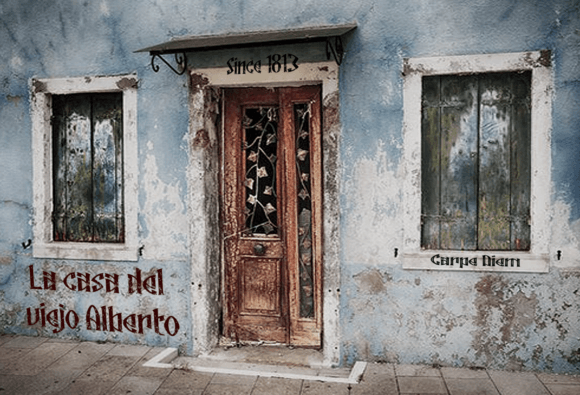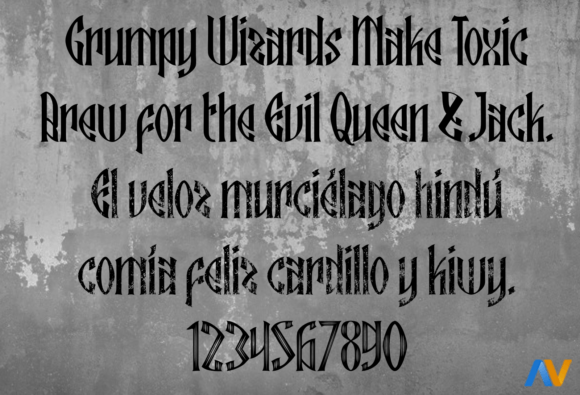
Discover the Timeless Elegance of Ebbarus Font: A Blackletter Multistyle Marvel
Are you ready to transport your designs to a bygone era of sophistication and refinement? Look no further than the Ebbarus 2020 font, a masterpiece crafted by Albertako that embodies the essence of vintage elegance. This blackletter multistyle font is a treasure trove of creative possibilities, offering three distinct styles to elevate your visual projects.
Unleash the Charm of Yesteryear with Ebbarus 2020
Ebbarus 2020 is more than just a font – it’s an experience. Its antiquated vibe is reminiscent of worn-out artifacts from a bygone era, yet it preserves the personality that made them so endearing. This font is perfect for designers and crafters seeking to infuse their work with a sense of history and character. Whether you’re working on a branding project, packaging design, or editorial content, Ebbarus 2020 is sure to leave a lasting impression.
Explore the Three Styles of Ebbarus 2020
One of the standout features of Ebbarus 2020 is its versatility, thanks to its three distinct styles:
- Blackletter Style: The core of Ebbarus 2020, this style boasts a dramatic, cursive flair that’s perfect for creating eye-catching headlines and titles.
- Scratched Variant: Add a touch of rustic charm to your designs with this unique, distressed variant. The scratched texture gives your text a worn, vintage look that’s sure to captivate your audience.
- Classical Regular Font: For a more subtle approach, the classical regular font offers a soothing contrast to the other two styles. Its classic design makes it ideal for body text, captions, or any situation where readability is paramount.
Combining Styles for Stunning Effects
The true magic of Ebbarus 2020 lies in its ability to combine all three styles seamlessly. By mixing and matching the blackletter, scratched, and classical regular fonts, you can create visually stunning effects that add an authentic edge to your designs. Imagine pairing a bold, blackletter headline with a scratched texture and a classical regular font for the body text – the possibilities are endless!
Ebbarus 2020 is a font that’s been crafted with designers and crafters in mind. Its versatility and range make it an excellent choice for a wide range of projects, from:
- Packaging design
- Editorial content (headlines, titles, and body text)
- Signage and display text
- Digital graphics and social media assets
Why Choose Ebbarus 2020?
With so many fonts available, why choose Ebbarus 2020? Here are just a few compelling reasons:
- Unique and distinctive: Ebbarus 2020 offers a one-of-a-kind aesthetic that’s sure to set your designs apart.
- Highly versatile: With three styles to choose from, you can adapt Ebbarus 2020 to suit a wide range of projects and applications.
- Easy to use: Despite its complex appearance, Ebbarus 2020 is surprisingly easy to use, even for those new to font design.
- Timeless appeal: The vintage charm of Ebbarus 2020 ensures that your designs will remain stylish and relevant for years to come.
In conclusion, Ebbarus 2020 is a font that deserves to be in every designer’s arsenal. Its unique blend of vintage elegance, versatility, and style makes it an excellent choice for a wide range of projects. Whether you’re a seasoned designer or a crafty DIY enthusiast, Ebbarus 2020 is sure to inspire and elevate your creative endeavors. So why wait? Immerse yourself in the world of Ebbarus 2020 and discover the timeless charm of this exceptional blackletter multistyle font.